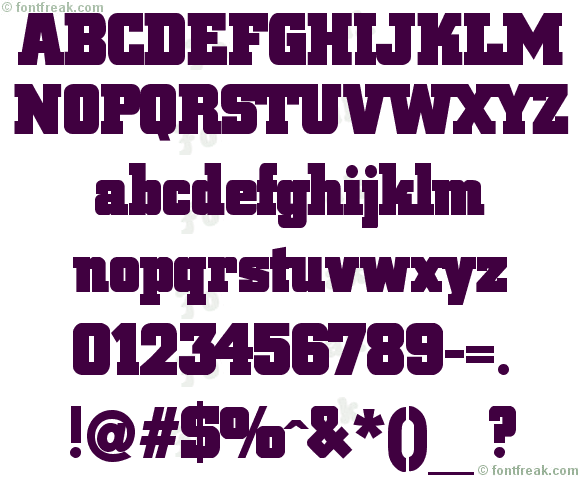
BlaxSlabXXL
About Blax Slab XXL
Blax Slab XXL by Manfred Klein is a striking serif typeface that merges modern design with a classic slab serif style. Its bold, robust letterforms are designed to capture attention, making it an excellent choice for projects requiring a strong visual impact. The font features a heavy stroke weight combined with minimal contrast, enhancing its readability and presence. Each character is meticulously spaced to provide a balanced appearance, ensuring that the text maintains its clarity even in larger formats. The decorative elements are subtle yet effective, adding a unique character to the overall design without overwhelming the viewer.
Blax Slab XXL is particularly well-suited for various applications. It shines in advertising campaigns, where eye-catching headlines are essential. Its bold nature makes it ideal for movie posters, allowing for dramatic and memorable title displays. Additionally, this font works beautifully in restaurant menus, where it can highlight dish names and sections with a touch of elegance. Graphic designers will appreciate its versatility for branding projects, and small business owners can leverage it for promotional materials that stand out. Content creators looking to enhance their visual storytelling will find that Blax Slab XXL lends a professional touch to any written piece.
The target audience for Blax Slab XXL includes graphic designers, small business owners, and content creators who seek a reliable yet distinctive typeface. This font stands out not only for its bold aesthetic but also for its functionality in diverse design contexts. The Blax Slab XXL font free download provides an accessible option for those looking to elevate their projects with striking typography. Whether for digital or print, this typeface embodies a perfect blend of strength and sophistication, making it a valuable addition to any designer's toolkit.